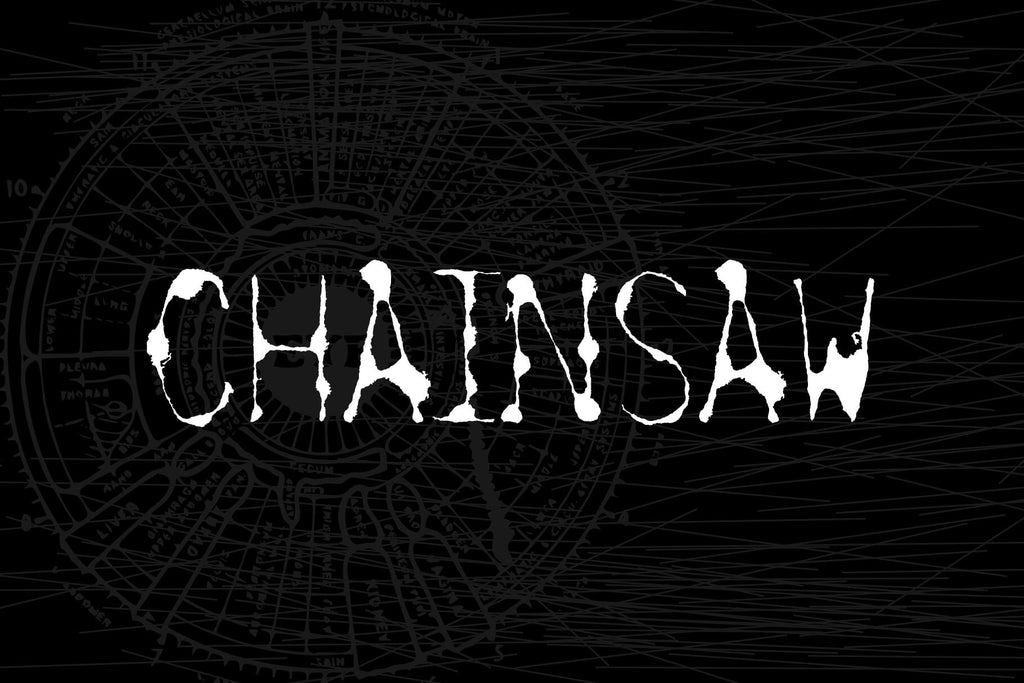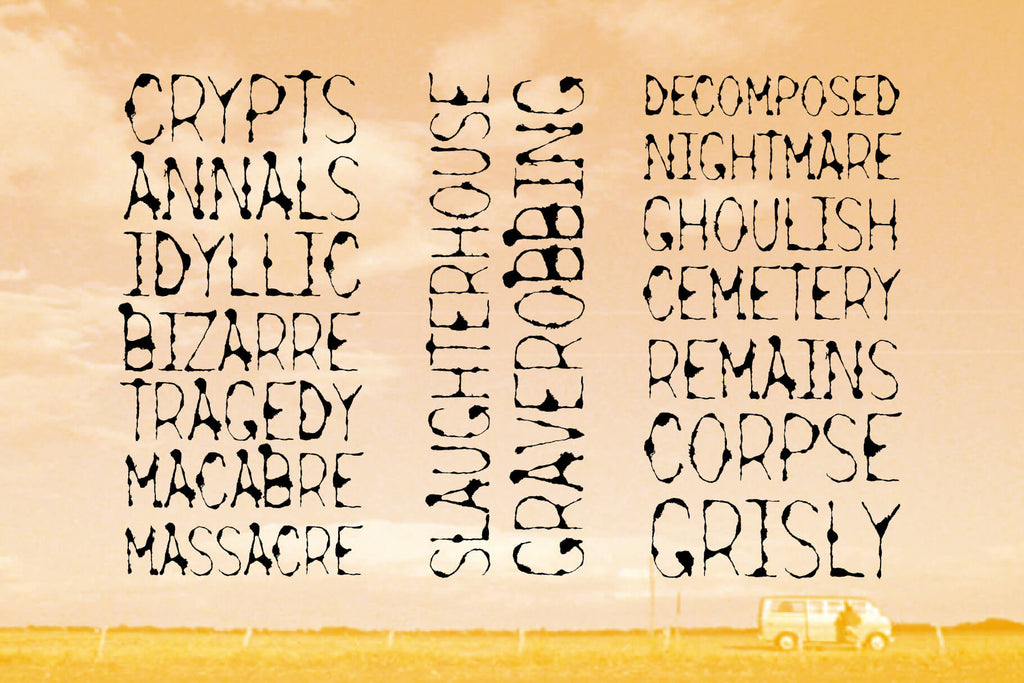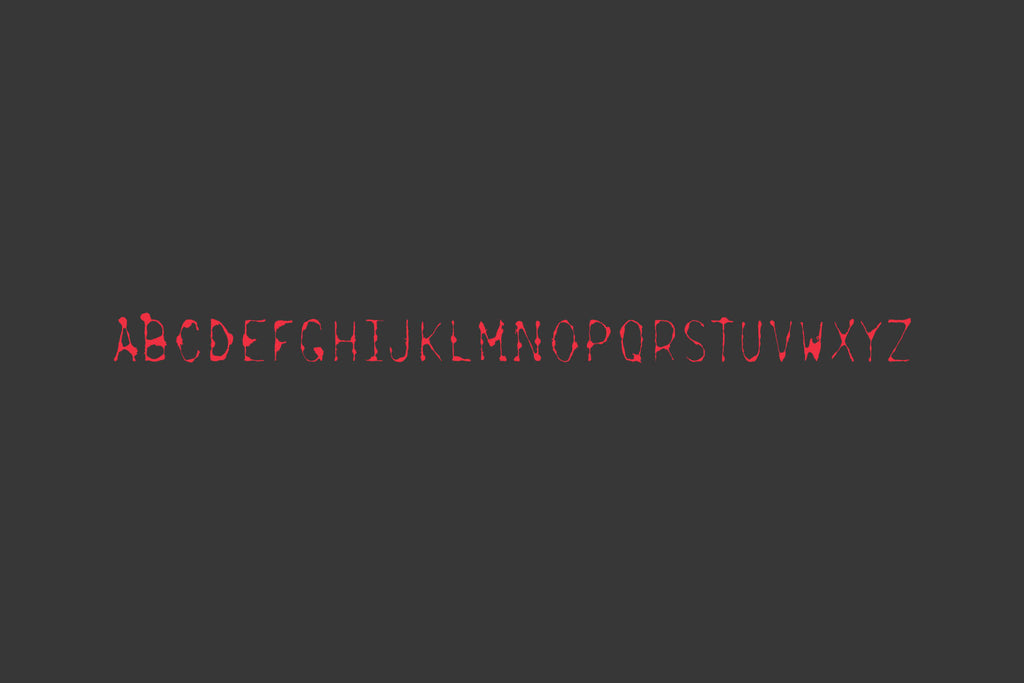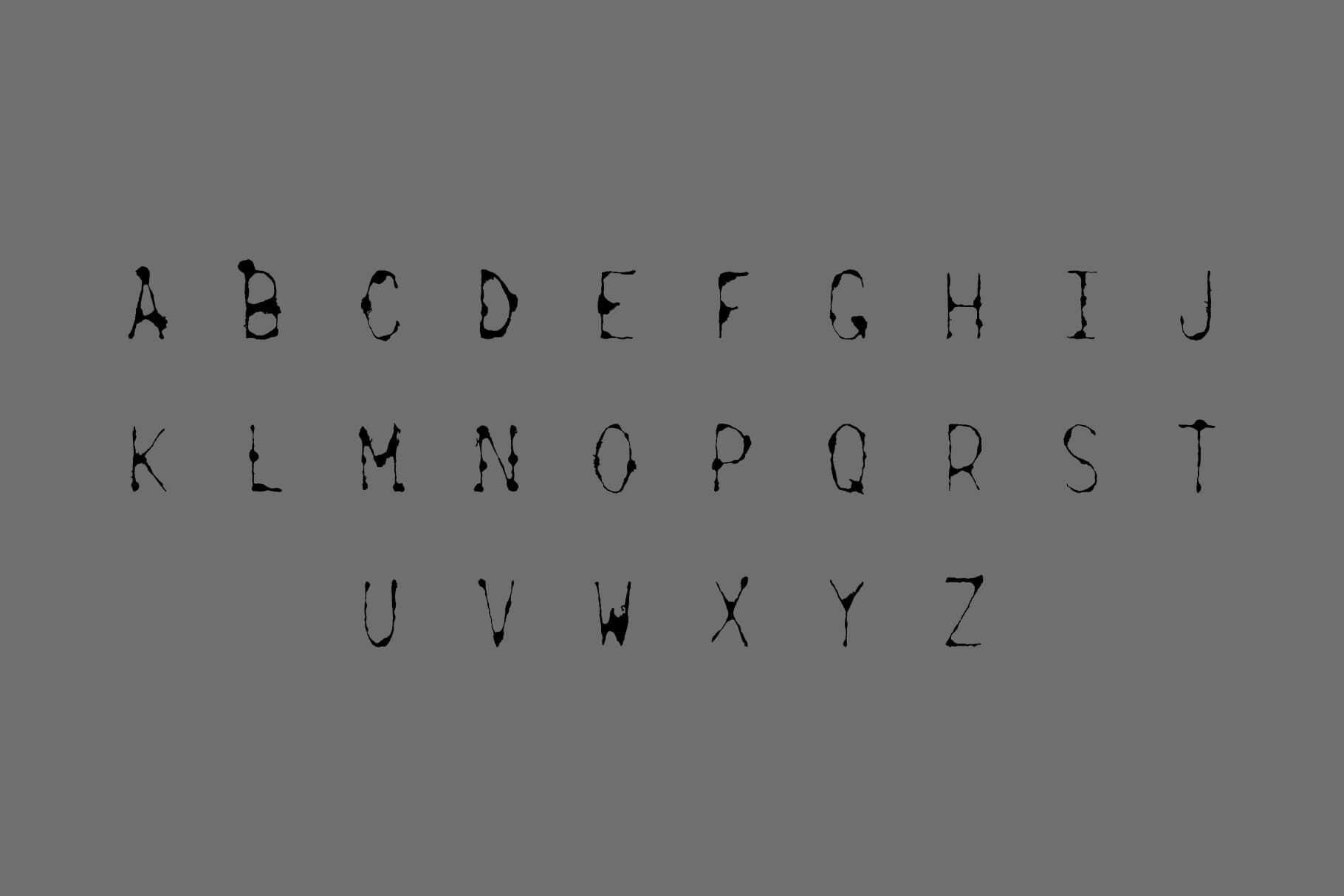
Chainsaw Typeface
Chainsaw is a distressed display typeface that feels unearthed rather than designed. Each uppercase character was hand-drawn using glue on paper, then aggressively spray-painted until saturated. The glue resisted the paint, leaving behind thin, blobby strokes with decomposed edges and unstable connections—like lettering eroding in real time.
The forms feel brittle, sunbaked, and haunted. Strokes stretch and sag where they meet, creating a subtle drip and fracture that evokes rural horror, forgotten places, and slow-moving menace. Chainsaw reads clearly at display sizes while retaining an unsettling, handmade irregularity that never fully settles.
Originally created for a senior college portfolio using Fontographer, Chainsaw is presented here as a raw archival release. This version includes uppercase letters only, with no numerals or punctuation—embracing limitation as part of its character. Ideal for horror posters, album art, film titles, zines, experimental branding, and any project that needs typography that feels wrong in the right way.